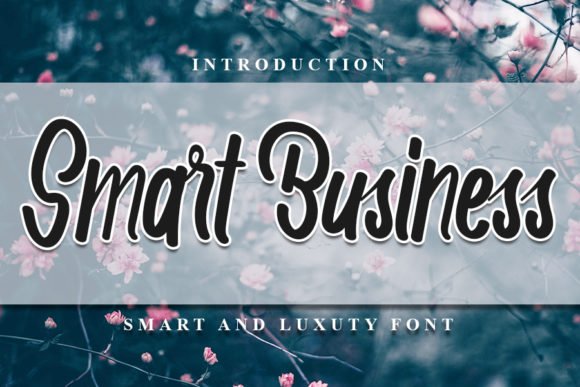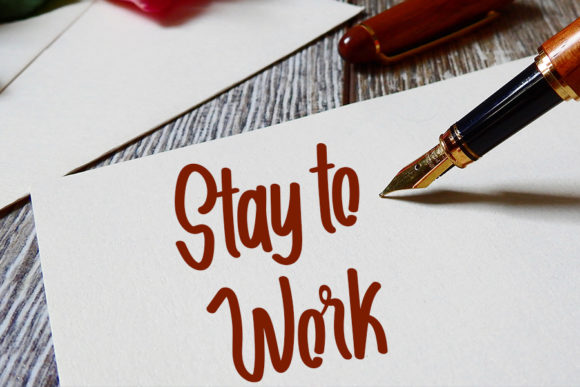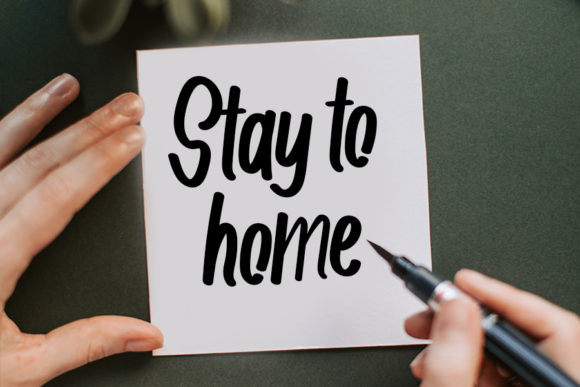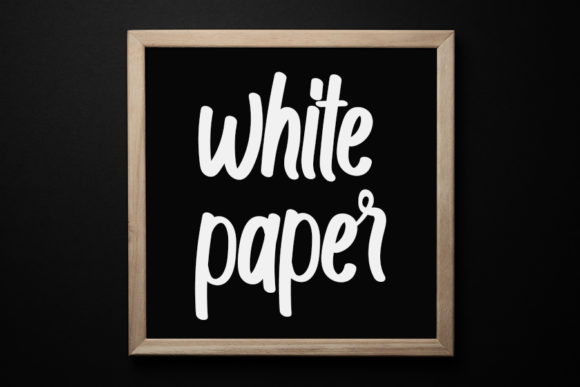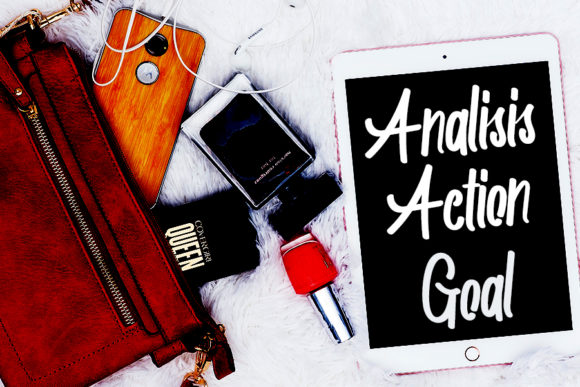
About Smart Business Font
Smart Business is a sweet and flowing handwritten font. It is suitable for creating any branding, product packaging, invitation, quote, t-shirt, label, poster, logo that you wish to develop.